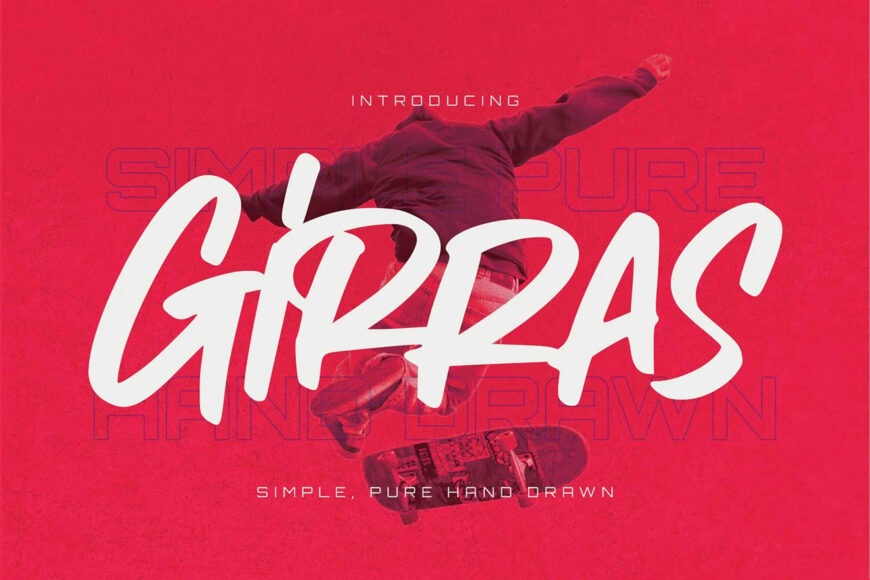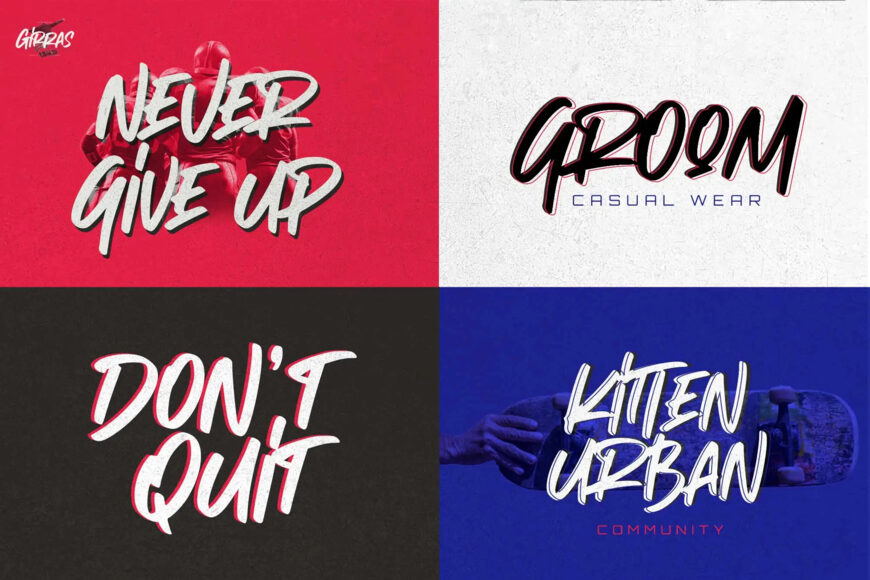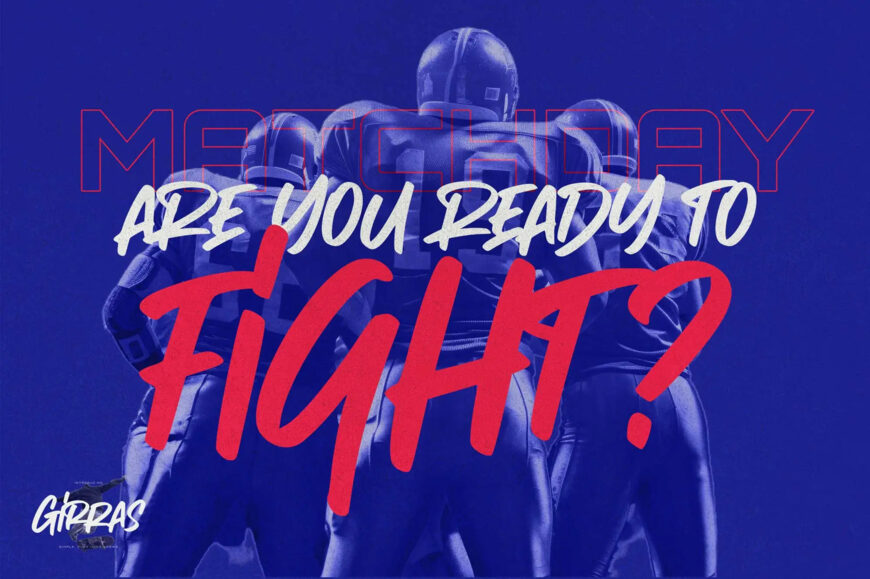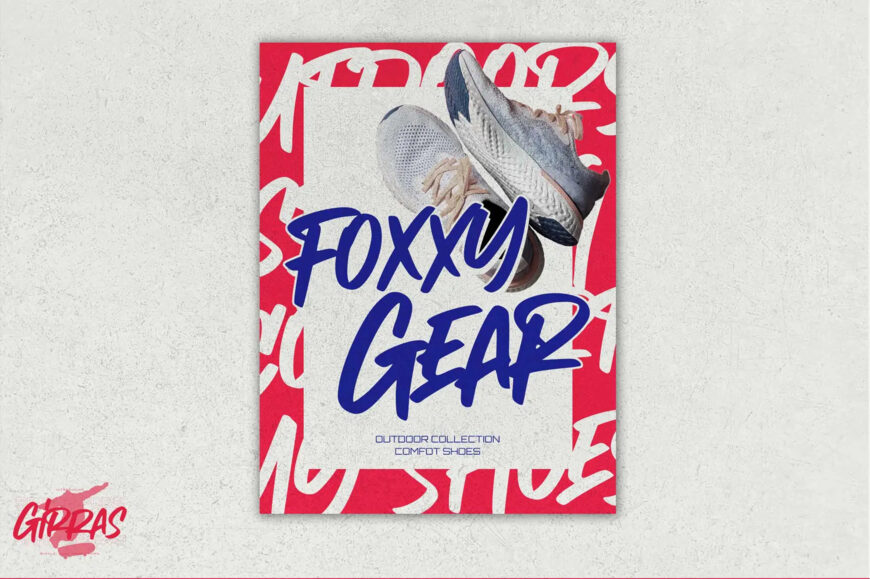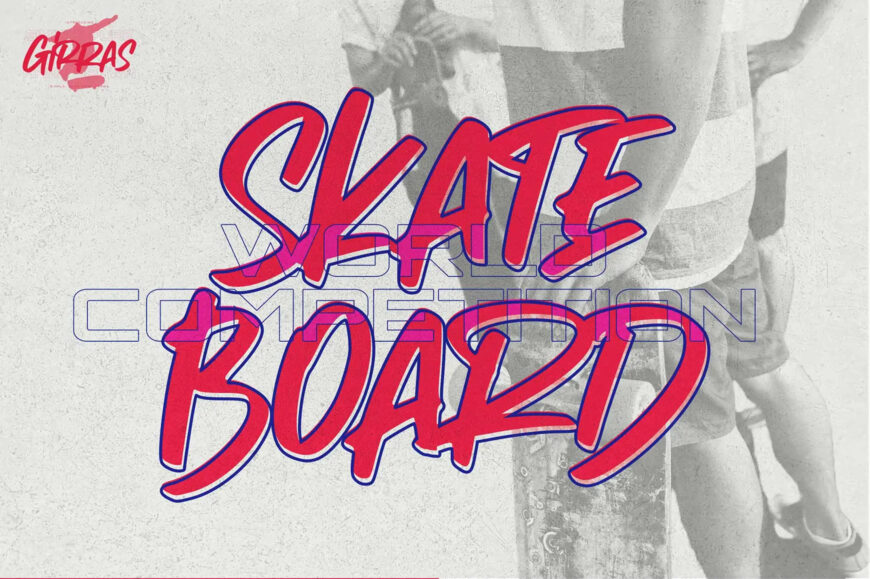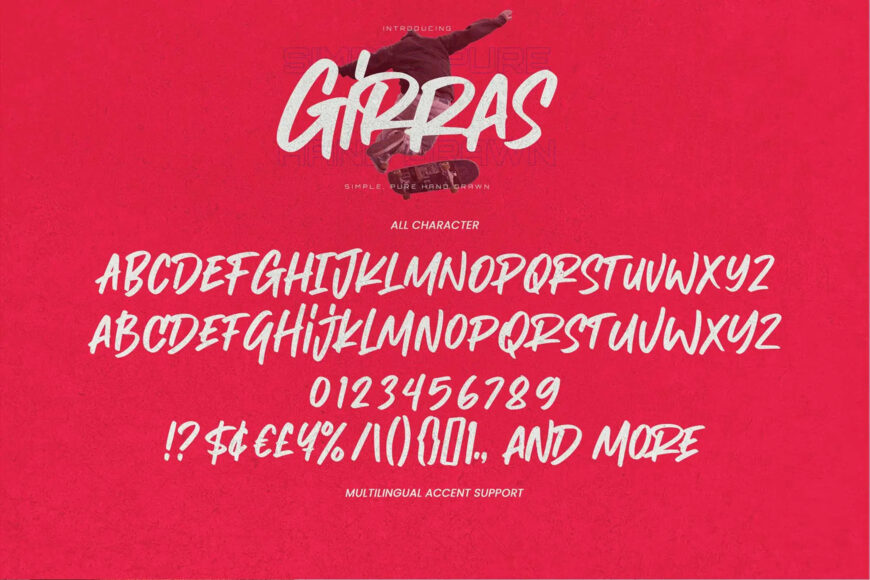
Girras is an energetic, hand-drawn brush font designed with a raw, urban attitude. Defined by bold, expressive strokes and slanted letterforms, it brings an edgy, street-style aesthetic to any graphic layout.
Its fluid, graffiti-inspired energy makes it an ideal choice for streetwear branding, skateboard graphics, sports apparel, poster designs, album covers, and dynamic action titles that require a bold, rebellious visual impact.